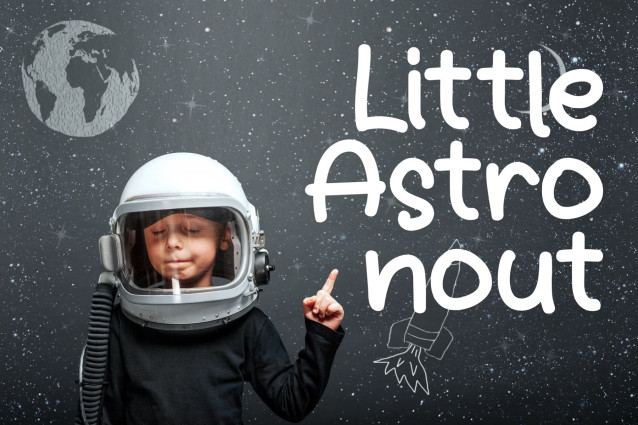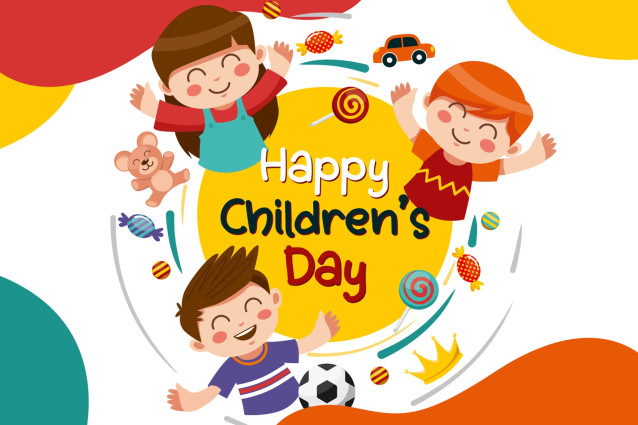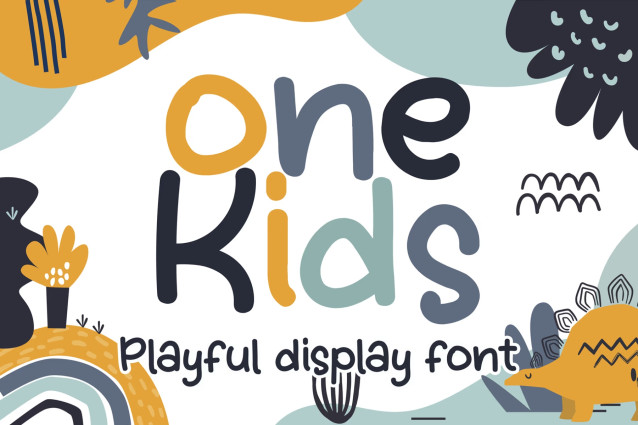
Onekids Playful Display Font
Onekids Playful Display Font is a cheerful handwritten typeface created for designs that need warmth, personality, and an easygoing visual voice. Its playful character gives words a friendly presence, making it a practical choice for children-focused projects, casual branding, colorful packaging, creative merchandise, and digital content.
The handwriting style helps your message feel more personal than a rigid or formal typeface. It can bring energy to a short headline, soften a brand identity, or make a product name feel welcoming and approachable. Whether you are creating for young audiences or simply want typography with a lighthearted mood, Onekids offers a distinctive foundation for expressive design.
With uppercase and lowercase characters, numbers, punctuation, and multilingual support, Onekids gives designers a useful character set for building complete layouts. The font is also supplied in OTF, TTF formats, supporting a range of common desktop and web-based design workflows.